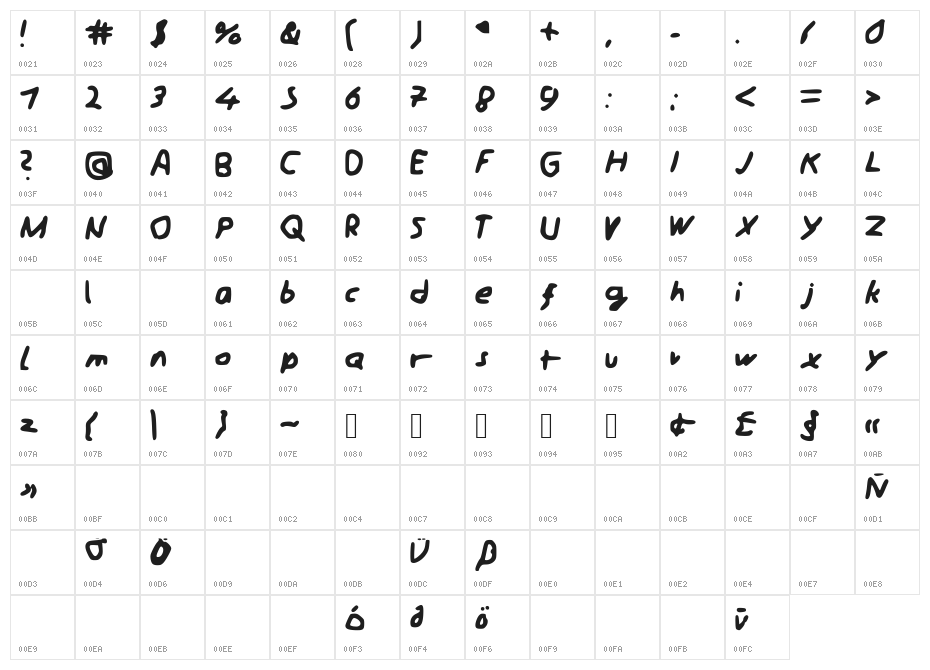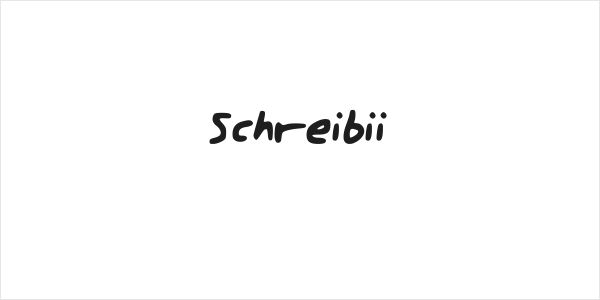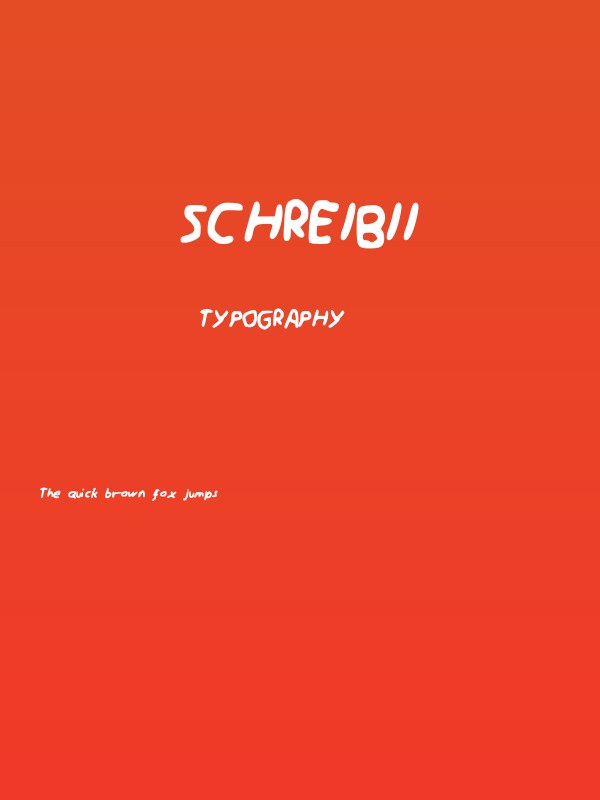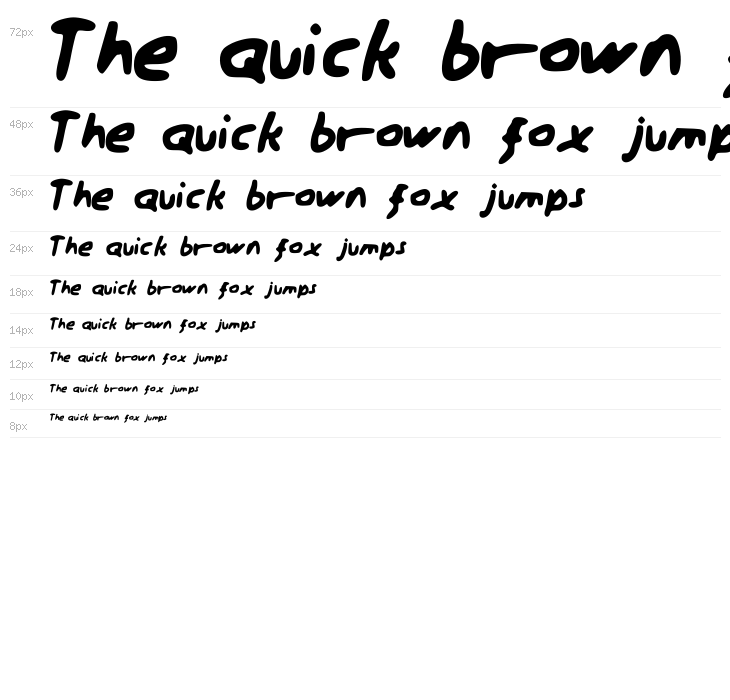
Schreibii Font
Schreibii Description
This font features a playful and informal style, characterized by its bold and rounded strokes. The letters have a hand-drawn appearance, giving them a casual and approachable feel. The uppercase and lowercase letters maintain a consistent style, with slightly exaggerated curves and a dynamic flow. The numbers and special characters follow the same aesthetic, ensuring a cohesive look across all text elements. The overall design is reminiscent of handwriting, making it suitable for projects that require a personal touch.
| Proposed Projects | Ideal for children's books, greeting cards, casual branding, and playful social media graphics. |